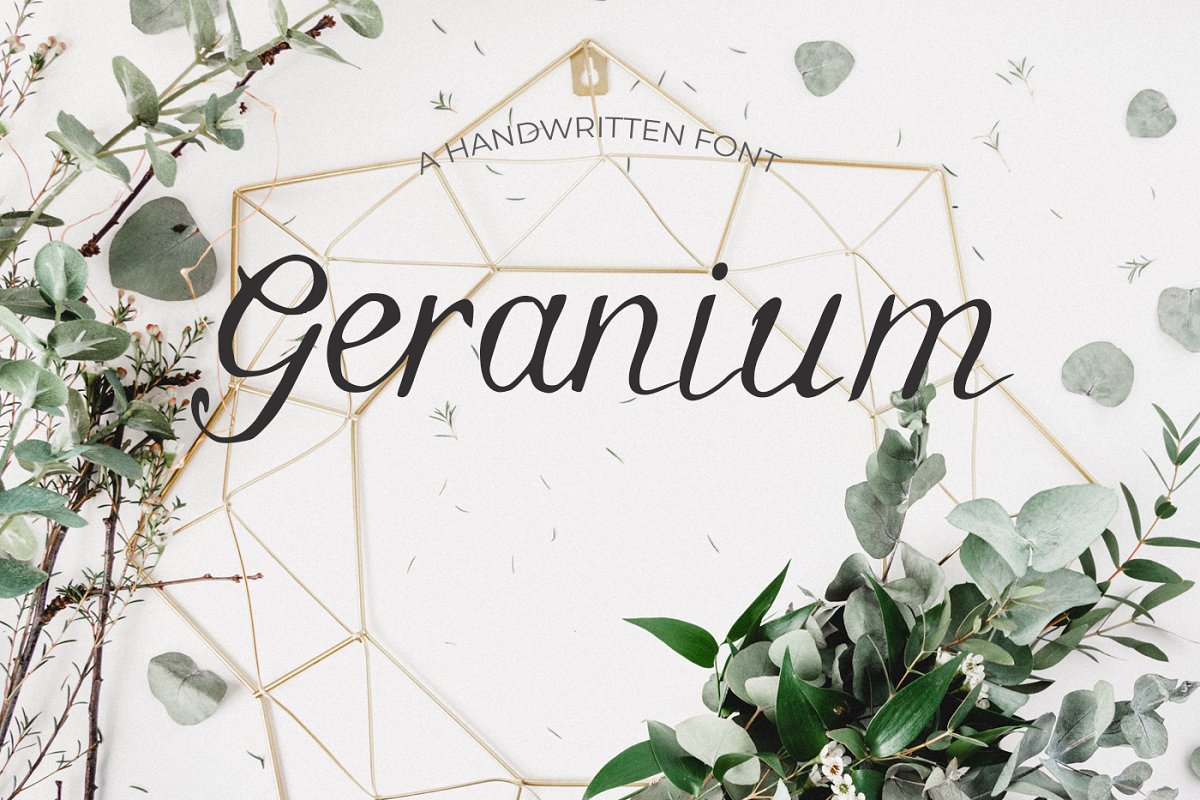
Geranium commercial use font is a wonderful font with a unique, detailed, and handmade look. These fonts look amazing in all caps with a wide-set spacing if you want to try a classy look. Geranium looks beautiful on its own in uppercase and lowercase letters for something completely timeless.
It is perfect for gorgeous logos, displays, headers, invitations, save the dates, weddings, titles, web layouts, and branding.